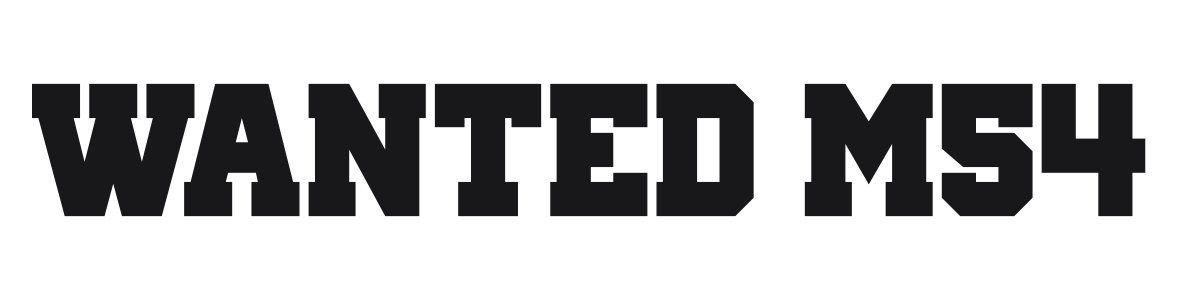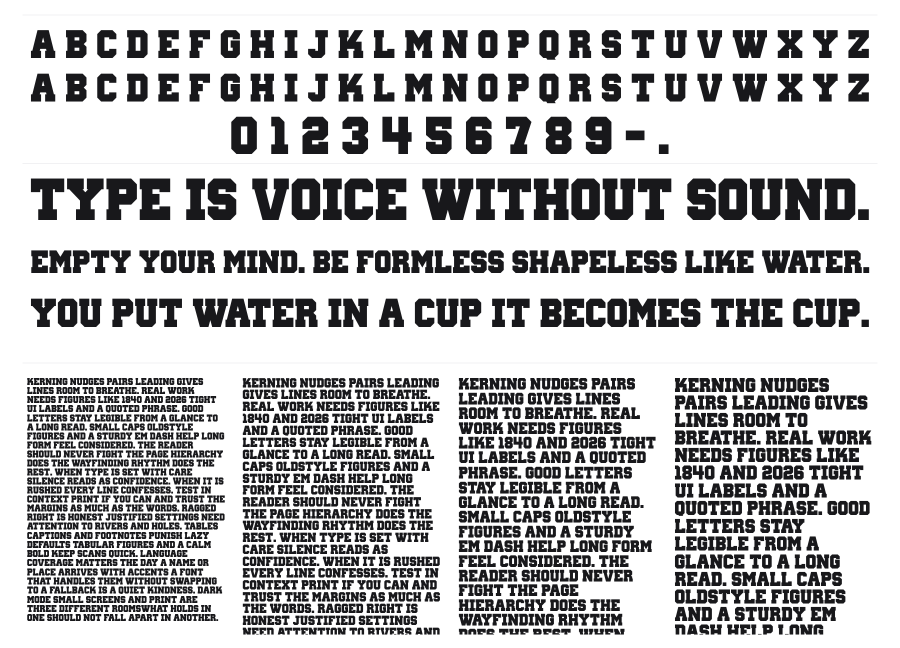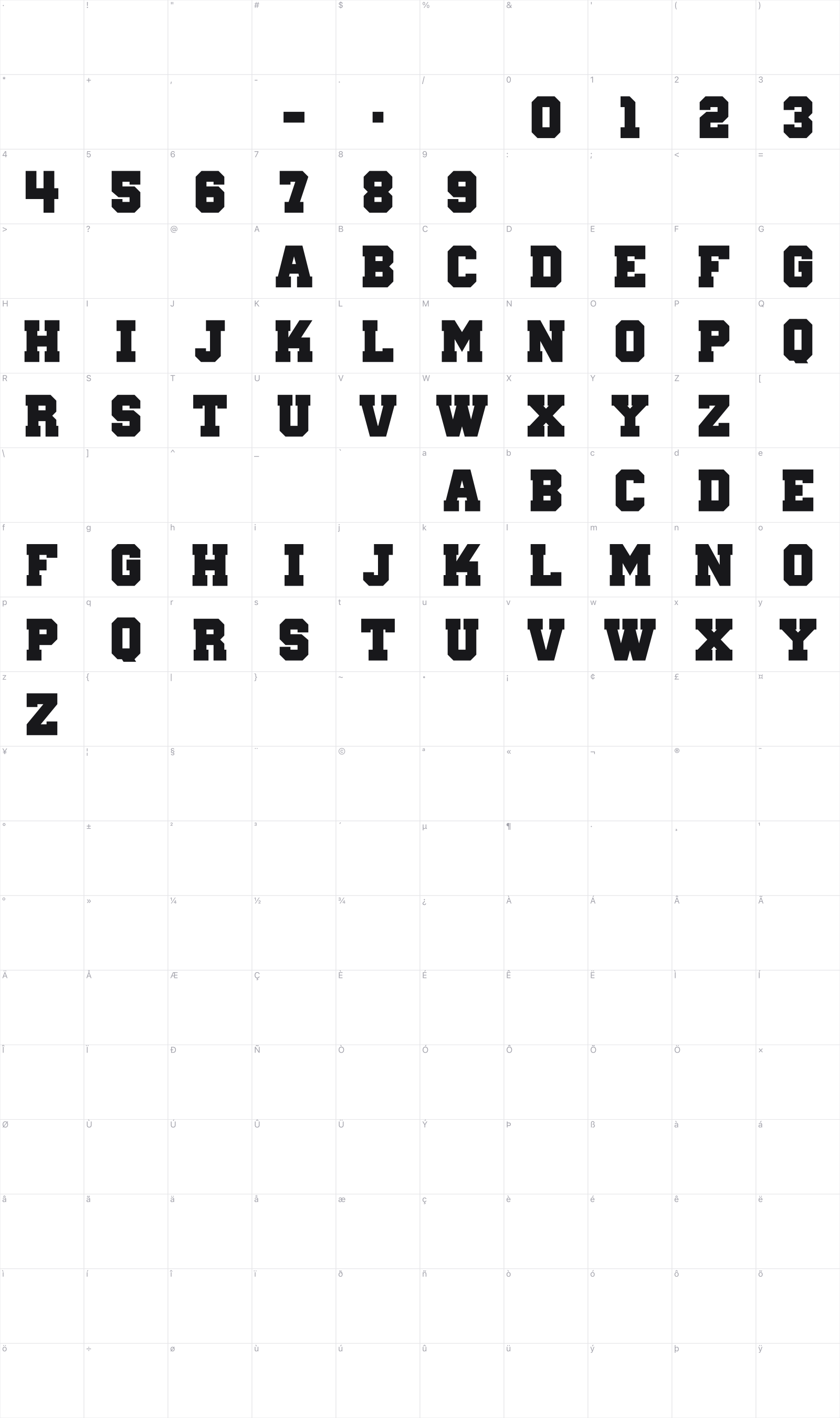
Wanted M54
Wanted M54 is a heavy collegiate slab-serif built for maximum impact at display sizes. It draws on the classic American varsity tradition with thick condensed strokes, sturdy bracketed serifs, and tight spacing that reads as powerful at any scale. Originally designed for t-shirts, kit numbers, and posters, it carries that sports-culture authority naturally.